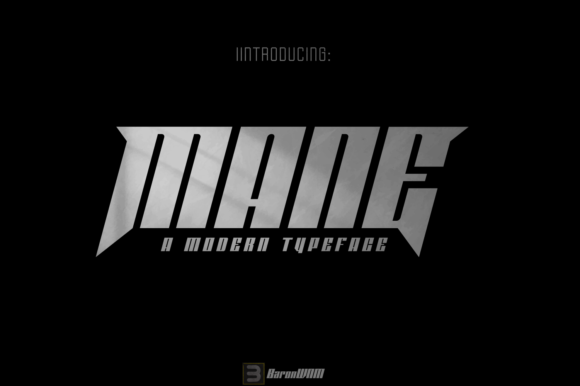
Feast your eyes on Mane Font, the typographic masterpiece that will ignite your creative spirit. This display font is a symphony of sharp edges and dynamic curves, radiating a modern and techno vibe that will elevate your designs to new heights.
Indulge in the limitless possibilities that await you with Mane Font. Whether you're crafting logos that demand attention, designing posters that electrify, or creating games that transport players to other realms, this font is your ultimate weapon. Its bold and assertive presence will make your projects stand out from the crowd, leaving an indelible mark on the minds of your audience.
Mane Font's versatility knows no bounds. Unleash your imagination and explore its potential in product designs that exude innovation. Let your imagination run wild as you create T-shirts that make a statement, packaging that captivates, and branding that resonates with your target market. The possibilities are endless.
With Mane Font in your creative arsenal, you'll discover a new level of expression. Its meticulously crafted characters will bring your words to life, conveying messages with power and impact. Whether you're a seasoned designer or just starting your creative journey, Mane Font will guide you towards excellence, empowering you to produce designs that leave a lasting impression.
Embrace the boundless creativity that awaits you with Mane Font. Let your imagination soar as you transform ordinary projects into extraordinary masterpieces. The time is now to make your mark on the world, one design at a time.